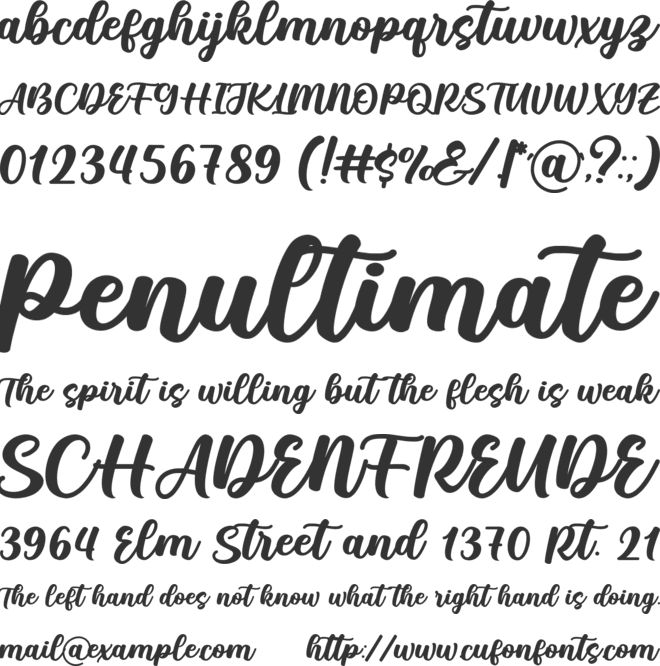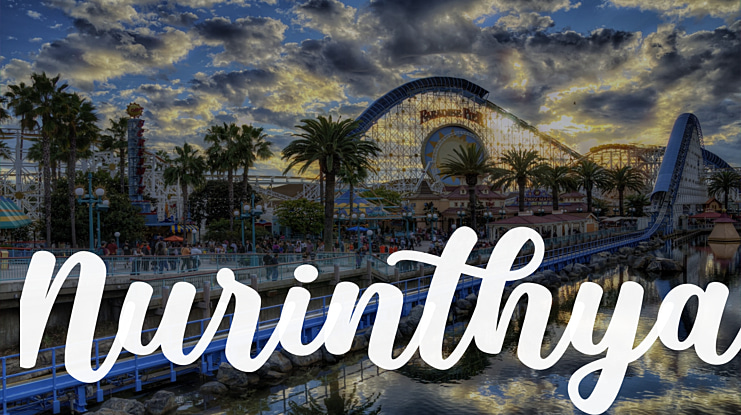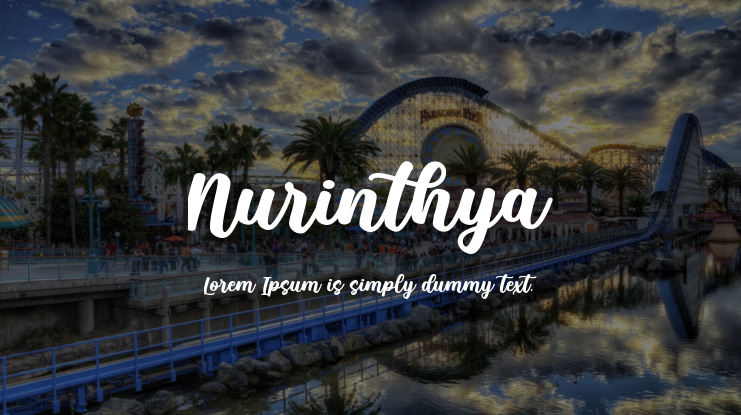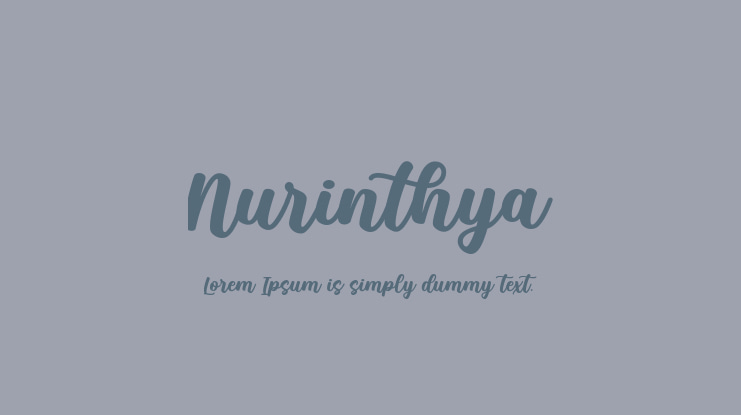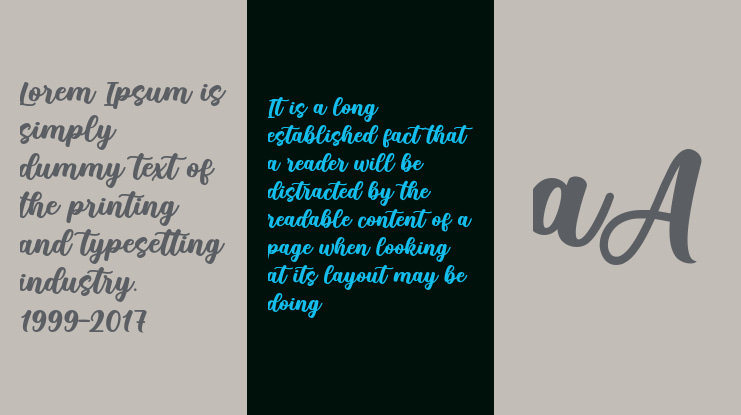
Nurinthya Font
A modern calligraphy script font which perfect for many different projects like a greeting cards, quotes, blog header, wedding invitation, poster, and more.